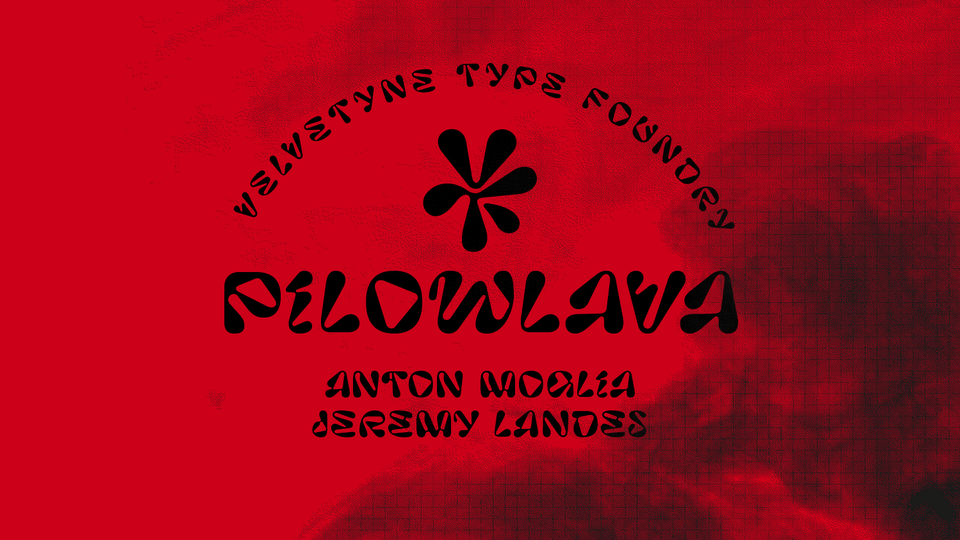
Download Pilowlava font, a creative display typeface designed by Anton Moglia and Jérémy Landes. It was born as an intuitive, fast-paced creative feedback loop in which its creators tried to amaze one another. The result is a typeface that recalls cooled lava flows drawn with a compass.